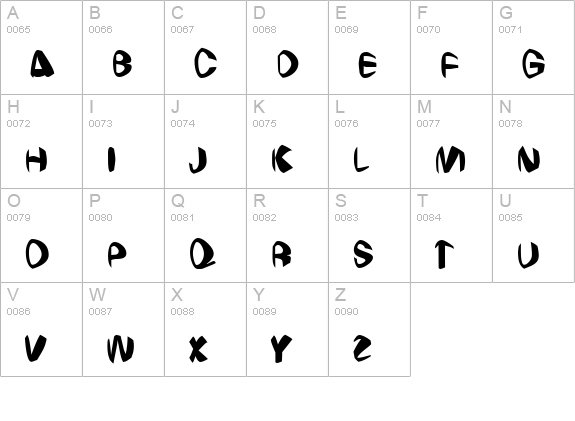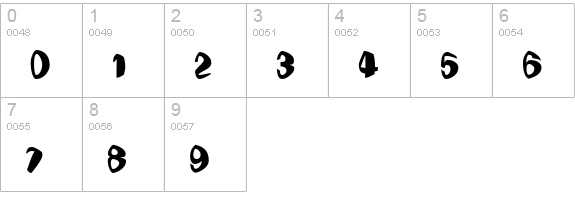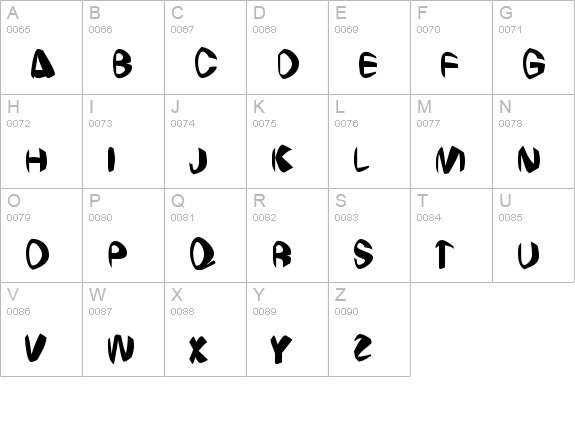
Weirdo Regular Font Details
Weirdo Regular is the standard, neutral variant in the Weirdo typeface family \xE2\x80\x94 well suited to general body text, paragraphs, and standard typographic work.
Weirdo Regular font is a unique and quirky typeface that is sure to capture attention and add a touch of eccentricity to any design. Its irregular letterforms and playful strokes make it perfect for projects that require a whimsical and offbeat aesthetic. With its distinct personality, Weirdo Regular font is a versatile typeface that can be used in a variety of contexts. Whether you're creating logos, headlines, posters, or even social media graphics, this font will bring an element of surprise and intrigue to your designs. And the best part? Weirdo Regular font is free! That's right, you can freely download this font at FontsMarket.com. It's a fantastic opportunity to add a bold and unconventional touch to your projects without breaking the bank. So go ahead and embrace your inner weirdo with Weirdo Regular font. Let your creativity run wild and watch as this font transforms your designs into something truly extraordinary. Don't miss out on this amazing free font – head over to FontsMarket.com and start downloading today!